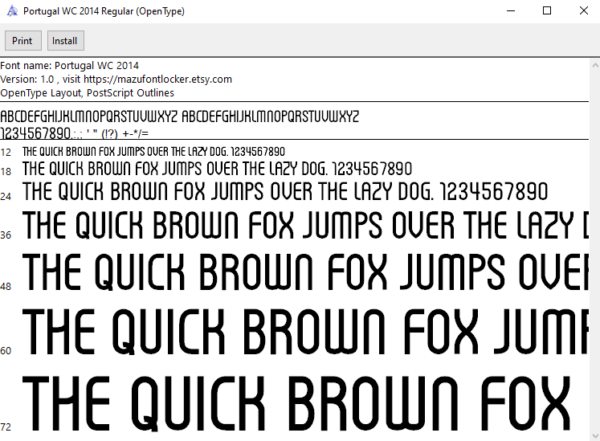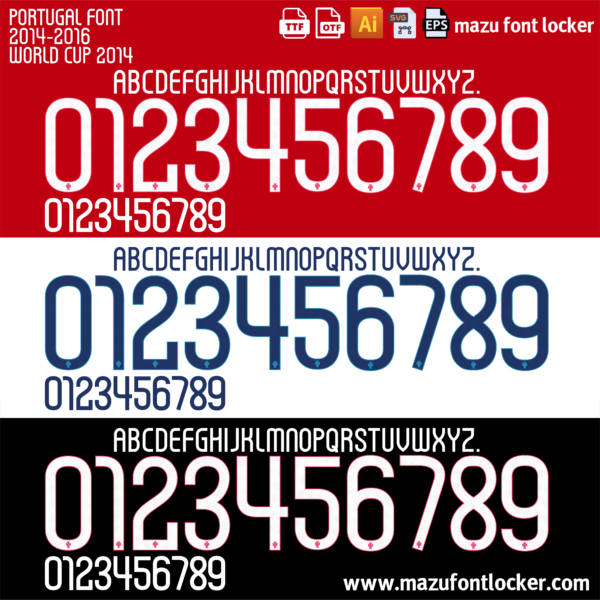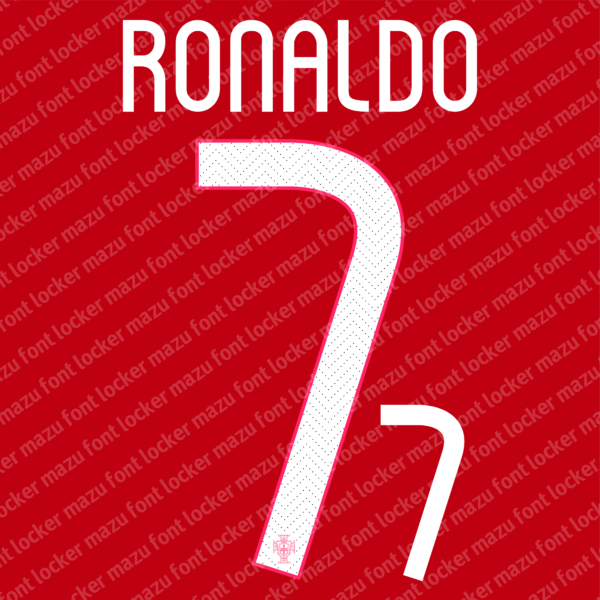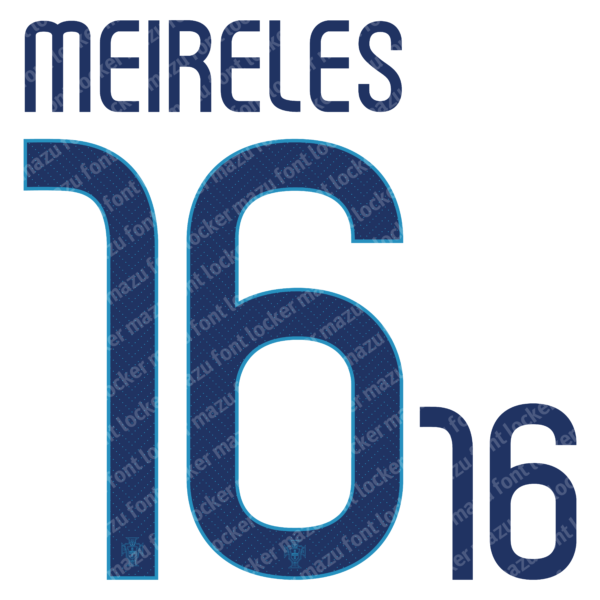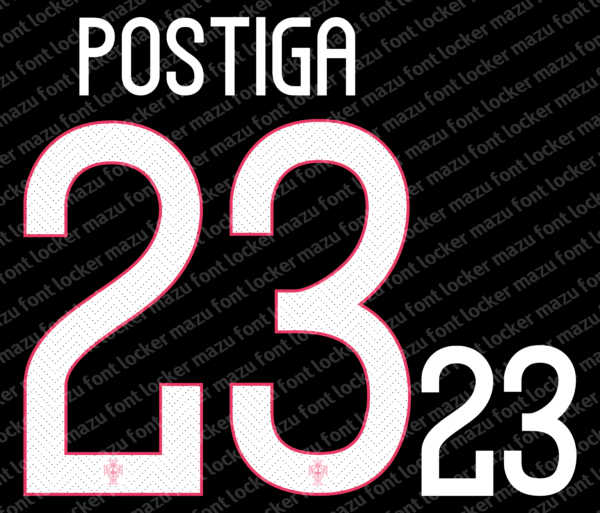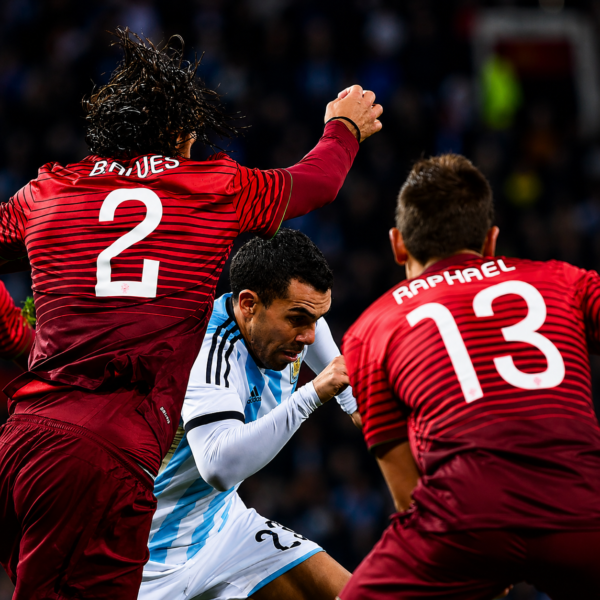
Portugal World Cup 2014 Font Vector – Epic Ronaldo Legacy Masterpiece
Portugal World Cup 2014 Font – Authentic Seleção Typeface
The Portugal World Cup 2014 Font is a premium typeface that accurately recreates the official match lettering worn by the Portugal national team during the 2014 FIFA World Cup in Brazil. This high-quality font kit captures the bold, dynamic, and iconic typography that represents the Cristiano Ronaldo-led campaign.
Designed for professional designers and passionate Portugal fans, the Portugal World Cup 2014 Font delivers perfect authenticity for creating retro jersey mockups, fan merchandise, matchday posters, social media graphics, and much more. It blends beautifully with the team’s iconic red-and-green colors.
Why Choose Portugal World Cup 2014 Font
This font stands out because of its sharp details and strong historical identity. Every letter and number is crafted to match the exact style used on the players’ shirts during the 2014 World Cup. Whether you are making realistic retro shirt templates or nostalgic football content, the Portugal World Cup 2014 Font gives your designs that authentic Seleção look.
The letterforms in the Portugal World Cup 2014 Font are tall, bold, and highly readable. The strokes have a strong and controlled weight that looks powerful on the back of jerseys while maintaining excellent clarity and elegance.
The numerals use bold curves and firm edges, giving them a confident and premium appearance. This design ensures great legibility whether used in large print formats, digital mockups, or video content.
• Full uppercase A–Z and numbers 0–9 in authentic Portugal 2014 style
• Special Portugal FPF crest glyph for accurate shirt number detailing
Portugal in the 2014 World Cup